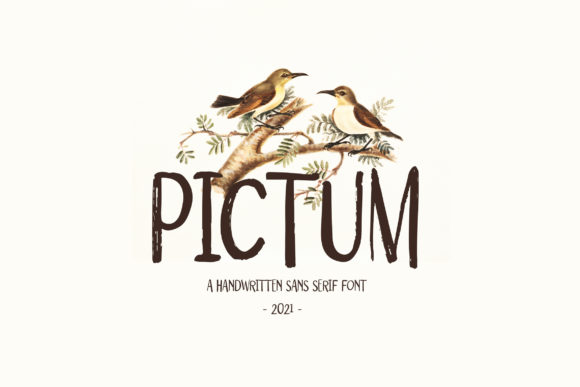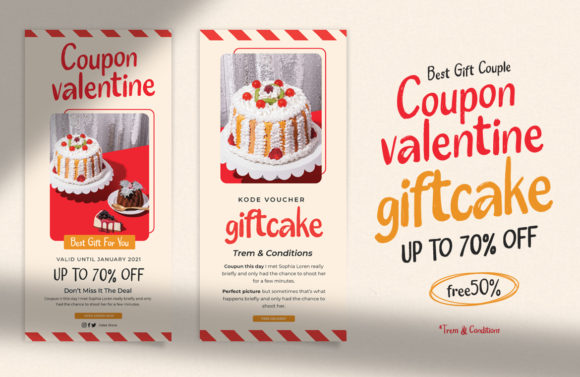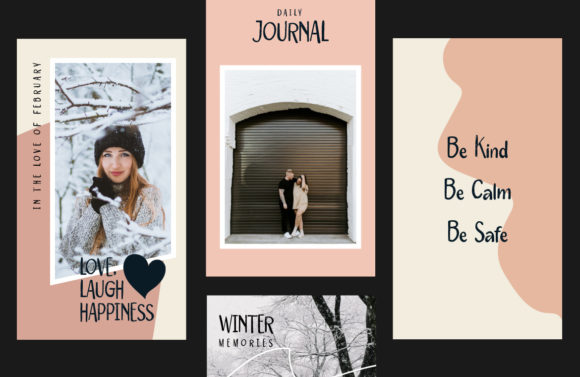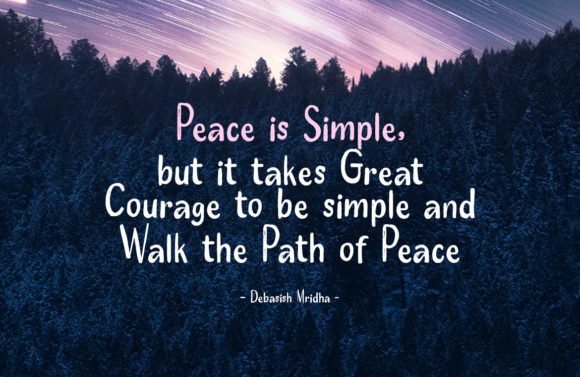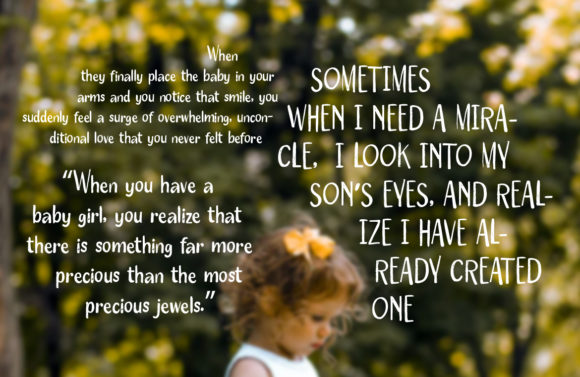
Pictum Font
About Pictum Font
Pictum is a unique and interesting display font. A little bit quirky, this font is a great choice for a wide variety of contexts!